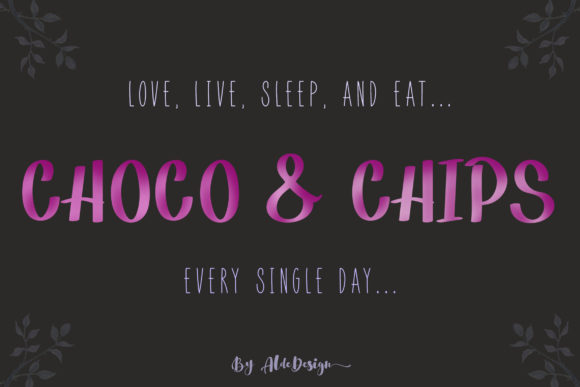
Introducing Choco & Chips Font: The Sweetest Script for Your Creative Delights!
Step into a world where chocolate meets calligraphy, where every letter is a sugary delight! Choco & Chips Font is a scrumptious script font that will tantalize your taste buds and elevate your designs to new heights.
Get ready to indulge in the delectable cursive strokes and enchanting swirls of Choco & Chips. This masterpiece is meticulously crafted to evoke a sense of whimsy and elegance, transforming your words into delectable treats.
With Choco & Chips at your fingertips, you can:
- **Bake Irresistible Logos:** Create mouthwatering logos that will make your brand an instant sensation. Choco & Chips' playful charm will add a touch of sweetness to your business identity.
- **Craft Delectable Invitations:** Invite your guests to a typography feast with invitations adorned with Choco & Chips. Its playful elegance will create a warm and inviting atmosphere.
- **Design Enchanting Packaging:** Wrap your products in the delectable embrace of Choco & Chips. Its alluring curves will entice customers and leave a lasting impression.
- **Sweeten Your Social Media:** Elevate your social media presence withChoco & Chips. Its charming personality will add a touch of sugary delight to your posts and engage your audience in a playful dance.
- **Craft Culinary Masterpieces:** Design drool-worthy menus, recipe books, and food packaging that will tantalize taste buds and inspire culinary adventures.
Choco & Chips Font is not just a font; it's a culinary experience for your designs. Its rich, decadent style will add a touch of sweetness to any project, leaving a lingering taste of delight.